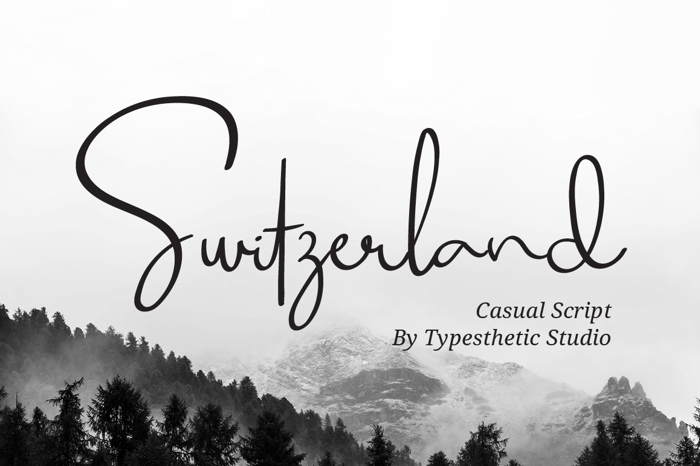
Switzerland Font
Switzerland is classy, elegant and super stylish modern calligraphy with natural handwritten movement.
Switzerland font is perfect for many different project such as logos & branding, invitation, stationery, wedding designs, social media posts, advertisements, product packaging, product designs, label, photography, watermark, special events or anything.